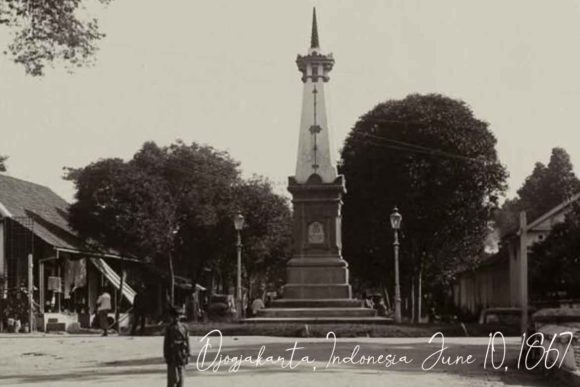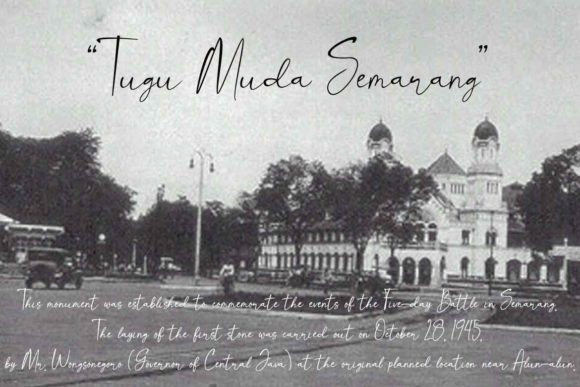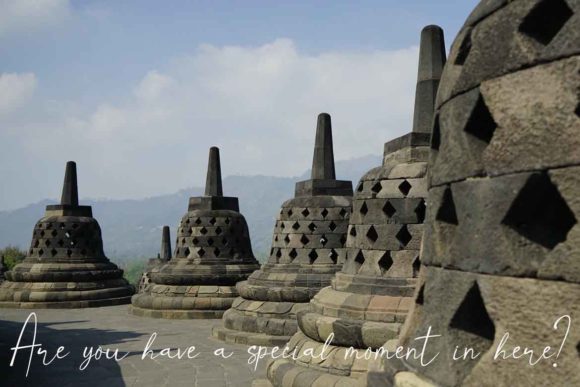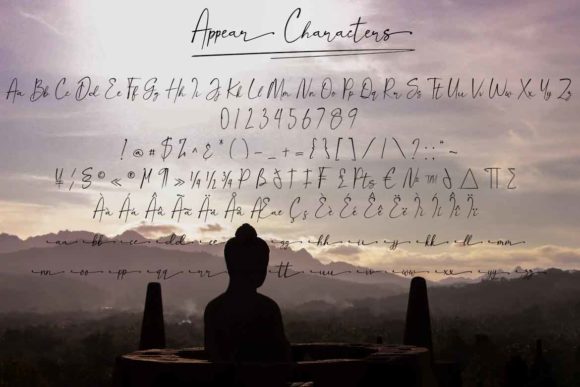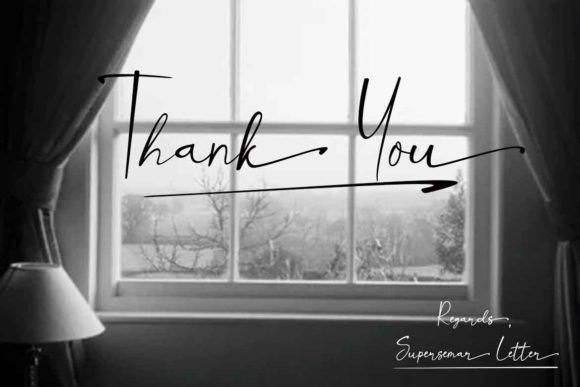
Introducing Appear Font: The Epitome of Elegance and Versatility
In the realm of typography, few fonts manage to strike a balance between elegance and modernity. Appear Font, however, is a shining exception. This outstanding handwritten font simplifies sophistication into a single, versatile typeface that is as classy as it is contemporary. Designed to cater to a wide array of creative projects, Appear Font is poised to become the go-to choice for designers and crafters seeking a touch of refinement and freshness in their work.
The Essence of Appear Font
At its core, Appear Font embodies the perfect blend of traditional calligraphic influences and modern design sensibilities. This harmonious fusion results in a typeface that exudes elegance and sophistication, making it an ideal choice for projects that demand a high level of refinement. Whether you’re working on letterheads, titles, stationery, or any other crafty ideas, Appear Font brings a level of class and poise that is hard to match.
One of the standout features of Appear Font is its incredible versatility. This font is not limited to a specific style or project; rather, it adapts seamlessly to a wide range of applications. From formal letterheads and elegant titles to charming stationery and beyond, Appear Font proves to be a reliable and stylish companion for any design endeavor. Its ability to feel both contemporary and fresh, while still maintaining those classy calligraphic influences, is a testament to its exceptional design.
Why Designers and Crafters Love Appear Font
Designers and crafters are always on the lookout for fonts that can help their projects stand out from the crowd. Appear Font offers several qualities that make it particularly appealing:
- Elegance: Its calligraphic roots lend it an air of sophistication and grace.
- Versatility: It can be used across a variety of projects, from formal to informal.
- Contemporaneity: Despite its classic influences, it feels modern and relevant.
- Freshness: It brings a unique touch to any design, ensuring it doesn’t feel stale or overused.
Applications of Appear Font
The applications of Appear Font are as varied as they are exciting. Here are a few ideas to get you started:
- Letterheads and Business Cards: Add a professional yet personal touch to your business correspondence.
- Titles and Headings: Elevate your website, blog, or marketing materials with elegant and eye-catching headings.
- Stationery and Invitations: Create beautiful, custom stationery sets or invitations for weddings, parties, and other special occasions.
- Branding and Packaging: Use Appear Font to develop a cohesive and sophisticated brand identity.
Appear Font is more than just a typeface; it’s a design solution that brings elegance, versatility, and a fresh perspective to the world of typography. Its unique blend of calligraphic influences and modern design makes it an invaluable asset for designers and crafters looking to elevate their projects. Whether you’re aiming to create something classic and refined or contemporary and bold, Appear Font is sure to exceed your expectations. Discover the difference that Appear Font can make in your designs today.